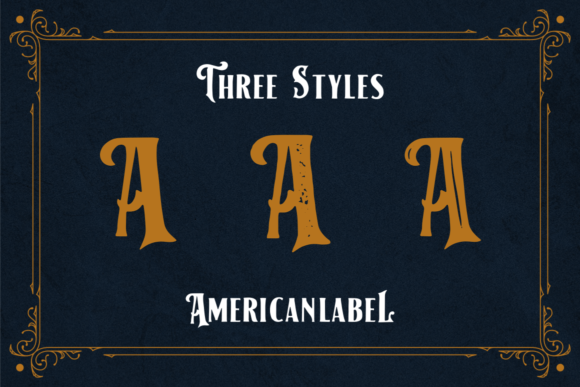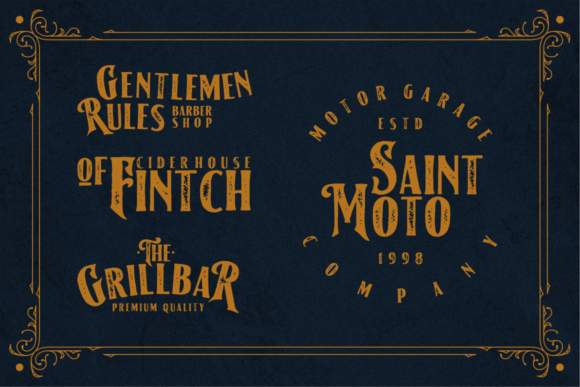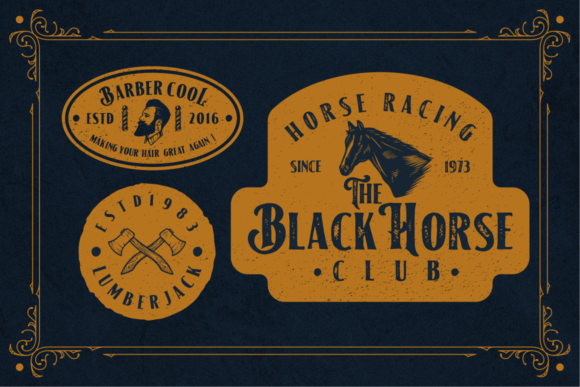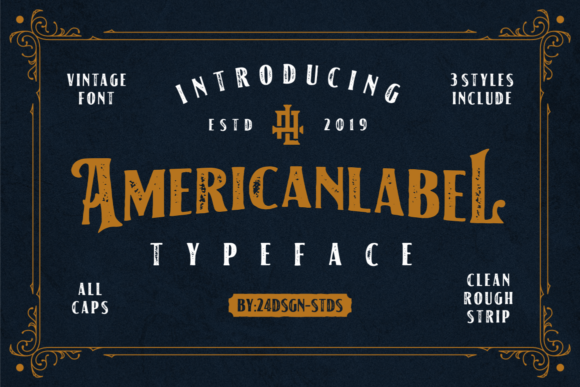
Introduction to American Label Font
American Label is a stunning display font with a vintage feel.
Use it to turn any design project into an eye catcher .
Key Features of American Label Font
Why Choose American Label Font?
American Label Font offers exceptional quality and versatility, making it a valuable addition to your design toolkit. Whether you’re creating for personal projects or commercial use, American Label Font delivers professional results.